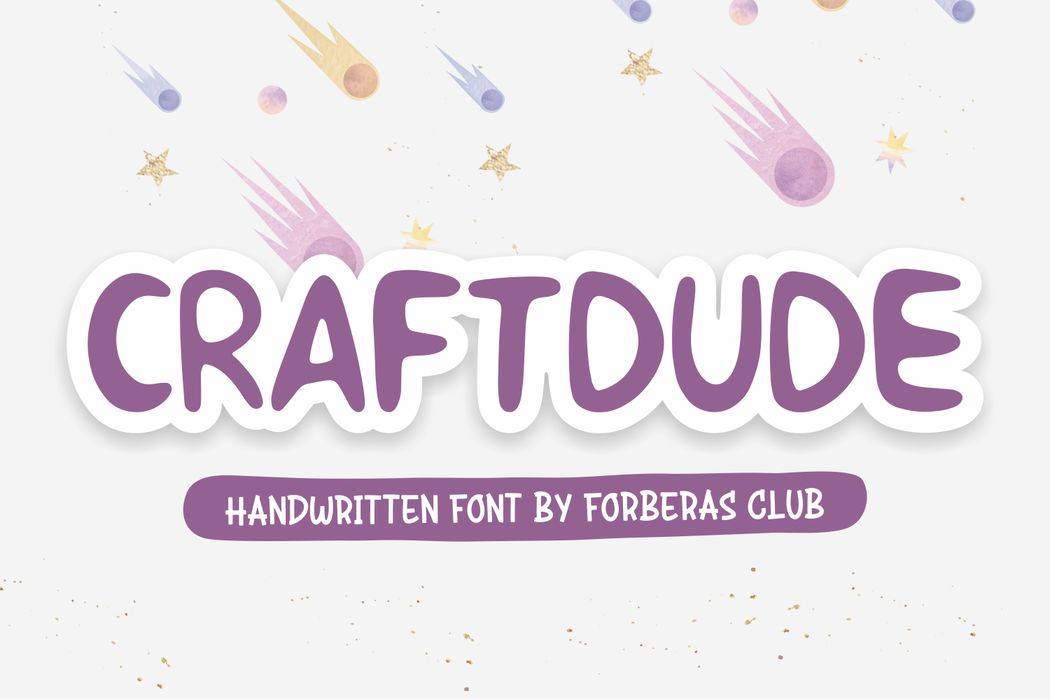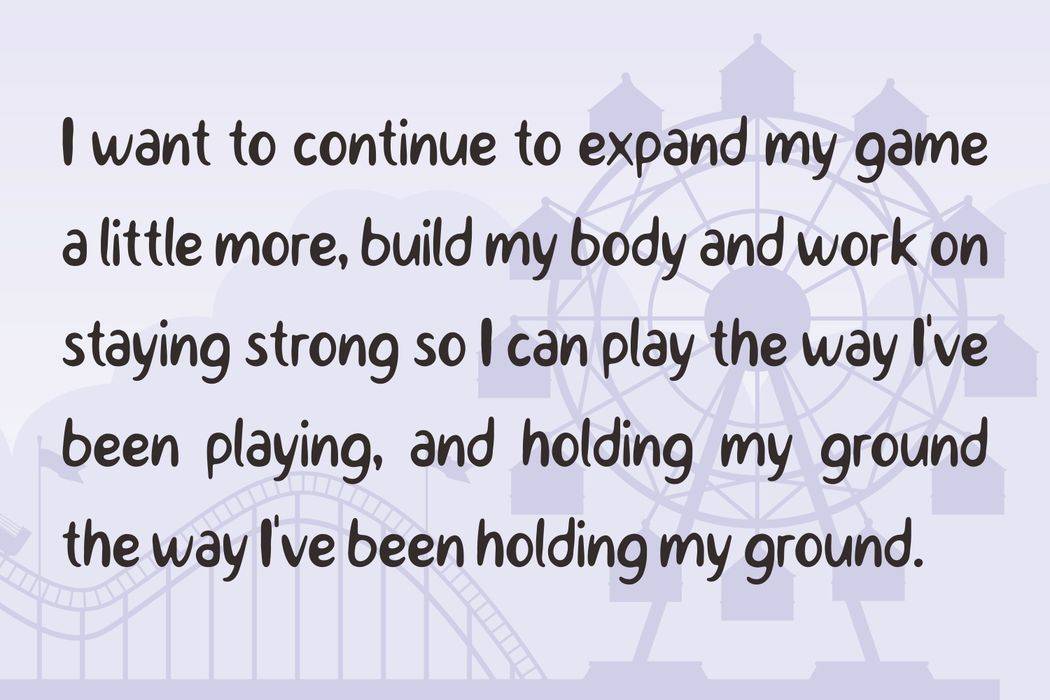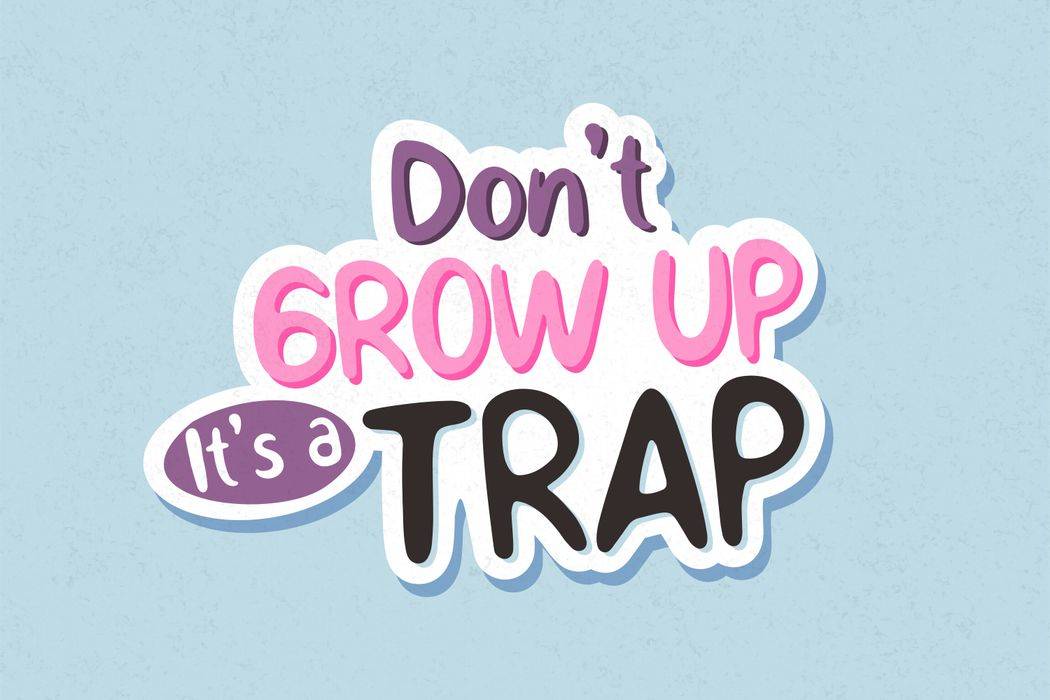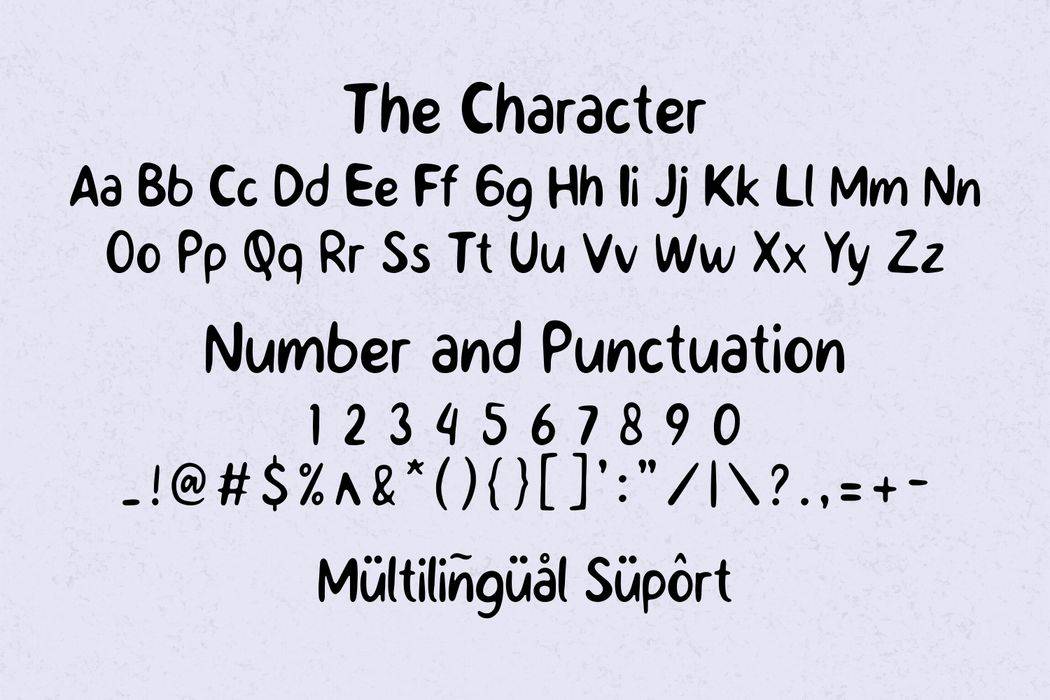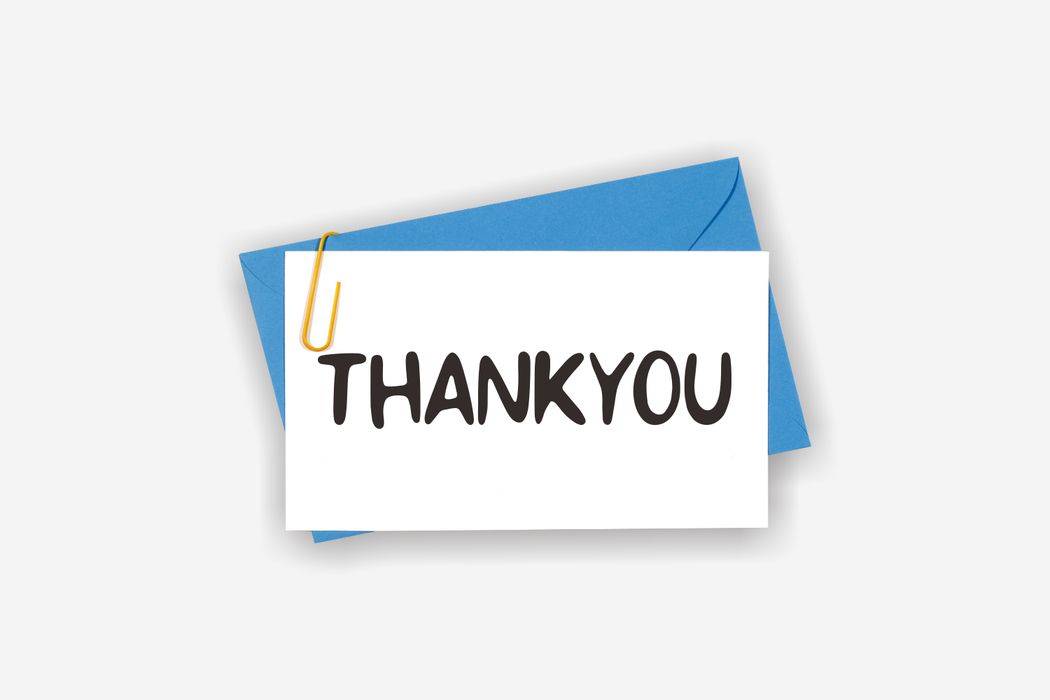
Craft Dude is a playful and informal sans serif font with rounded, slightly irregular letterforms that evoke a hand-drawn, friendly feel. Its casual style and moderate weight make it ideal for creative projects, children’s content, or any design seeking a warm, approachable vibe. This font works well in headlines, logos, and packaging where a fun and personal touch is desired.
Craft Dude Font
About Craft Dude Font
| Font family | Craft Dude Font |
| Release date | 2022-03-03 |
| Designer | forberas |